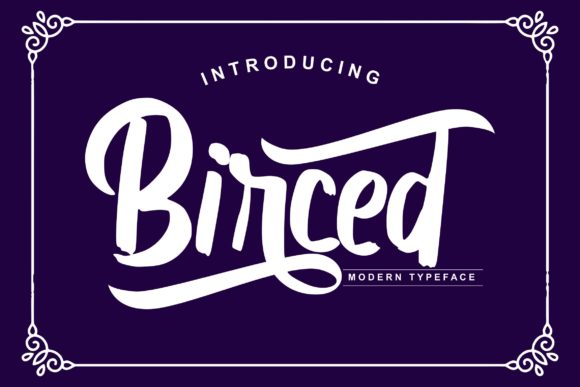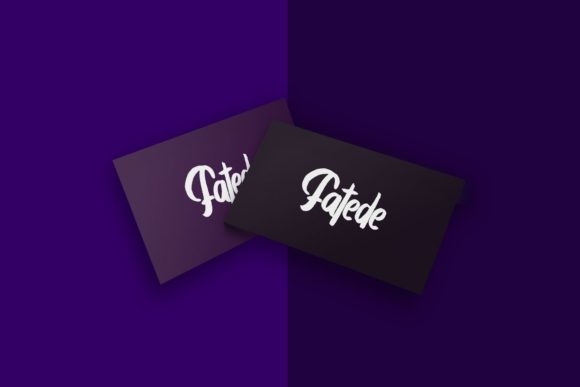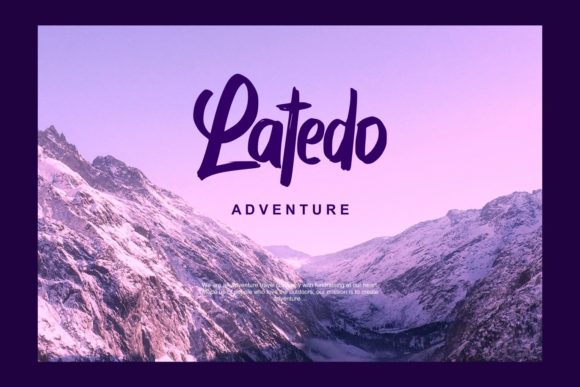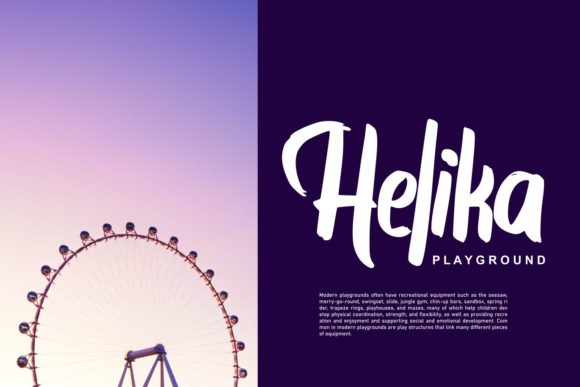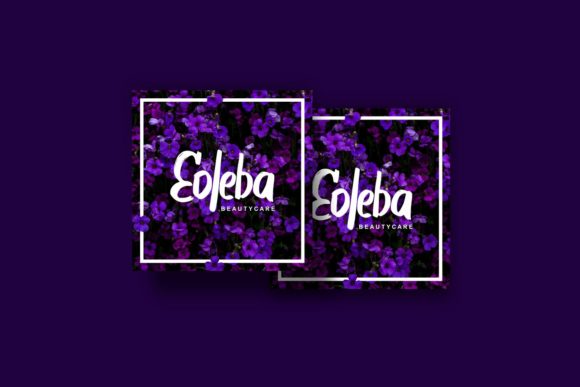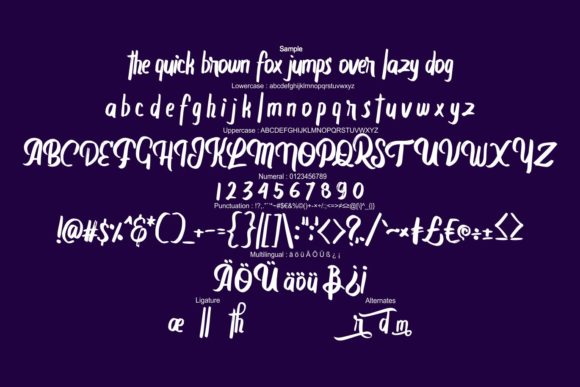
Birced Font
About Birced Font
Birced embodies fun, quirkiness and authenticity. This enchanting handwritten font will turn any creative idea into a true standout. Use this gorgeous and unique font to bring any DIY project to life!